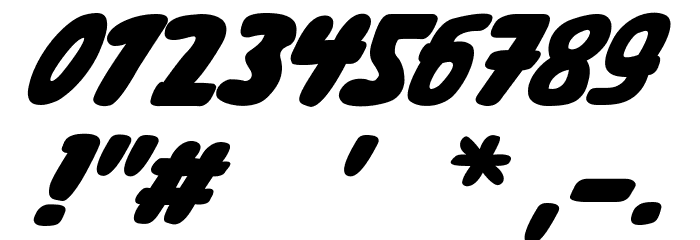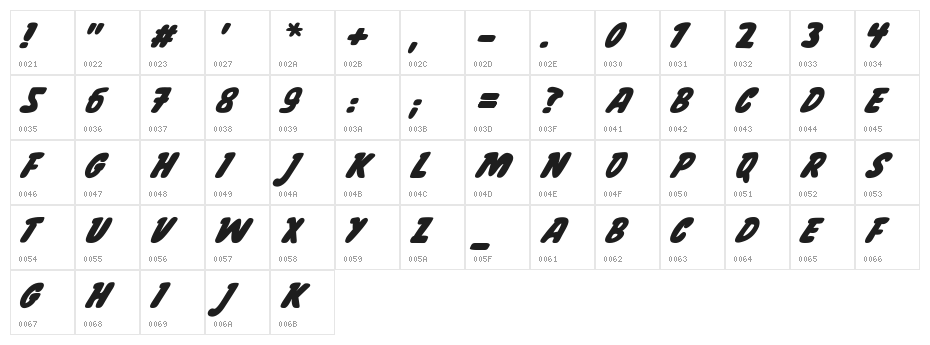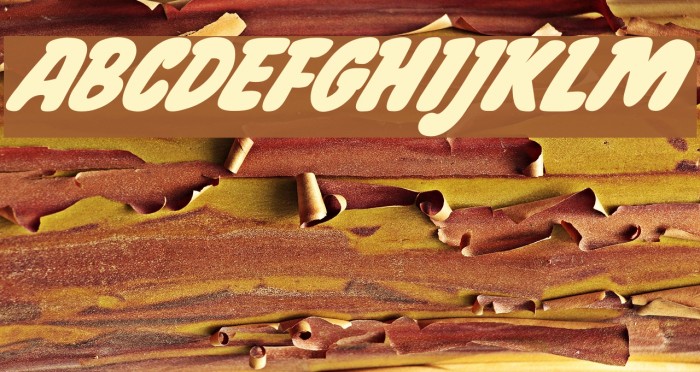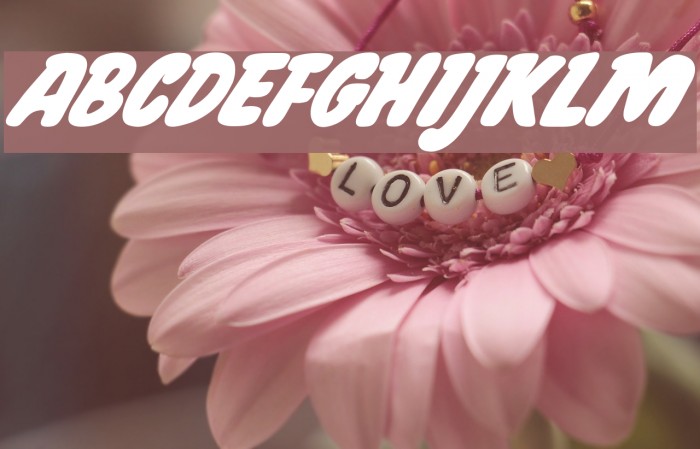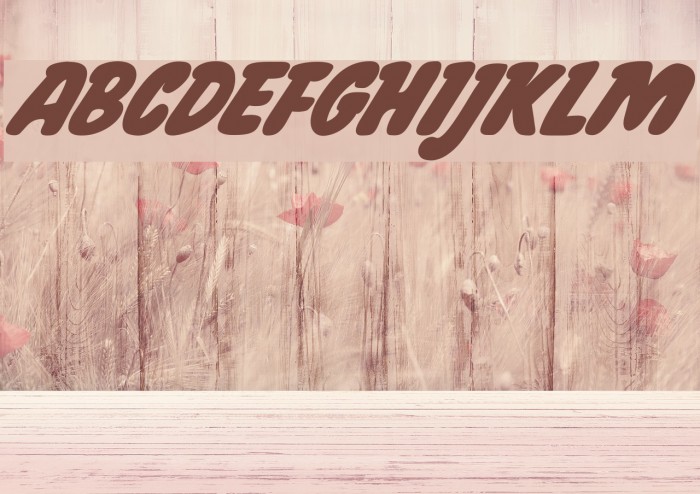
Garcia Font
Garcia Description
This font features bold, rounded characters with a strong, energetic presence. The letters are slightly slanted, giving a sense of motion and dynamism. The strokes are thick and consistent, contributing to a high contrast appearance. The overall style is playful and modern, making it suitable for attention-grabbing designs. The character spacing is tight, enhancing the compact and impactful look of the text. This font is ideal for projects that require a bold statement, such as branding, posters, and headlines.
| Proposed Projects | Ideal for branding, posters, headlines, and any design needing a bold statement. |